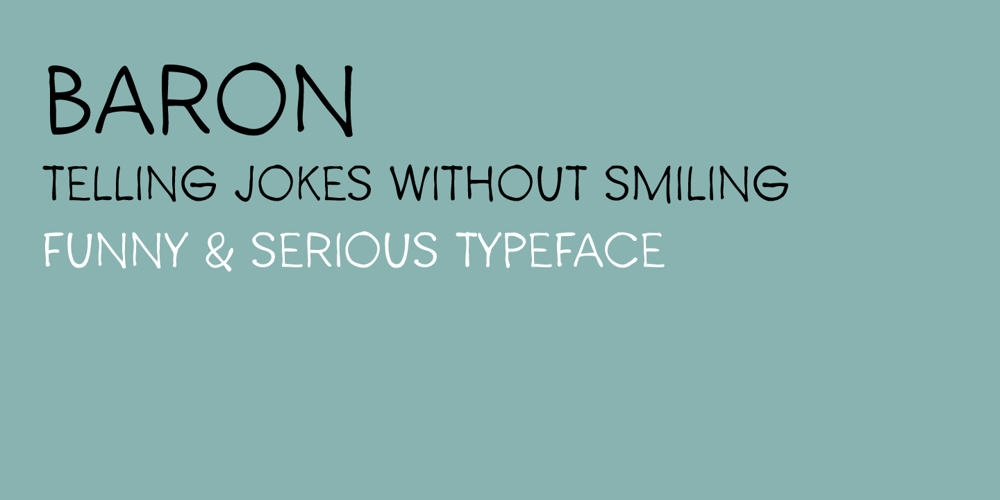
Baron Font Family was designed by Juraj Chrastina and published by Juraj Chrastina. Baron contains 1 styles and family package options. After Baronessa – funny but not crazy cartoon style font, Baron is an other handmade typeface, warm and friendly but not excessively childish. If Baronessa is a little feminine, Baron is neutral and it’s funny and serious at the same time. Baron can tell jokes without smiling. Because a joke can be funny even if the teller doesn’t smile.